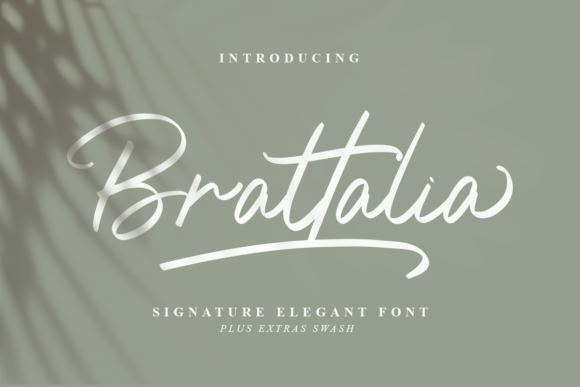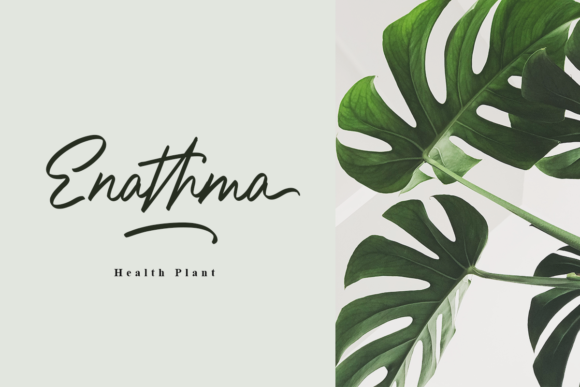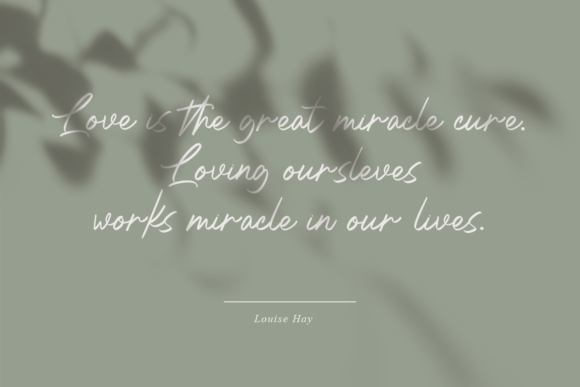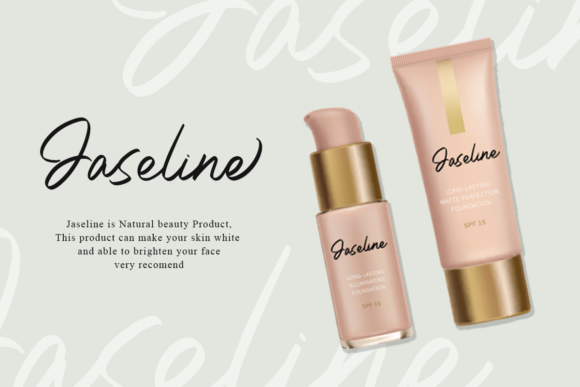
About Brattalia Font
Brattalia is a sweet, soft hand-lettered script font. The playful rounded characters make it the perfect font for creating stunning crafting projects. Fall in love with its authentic feel and use it to create gorgeous wedding invitations, beautiful stationary art, eye-catching social media posts, and cute greeting cards.